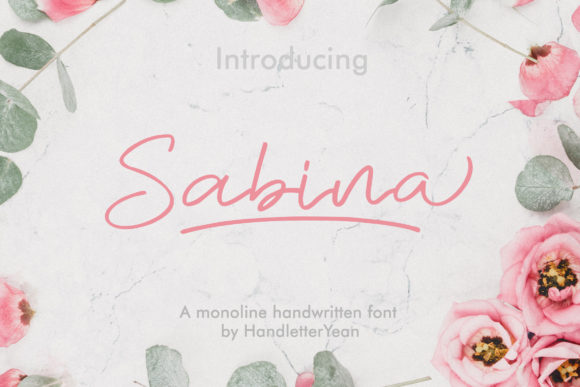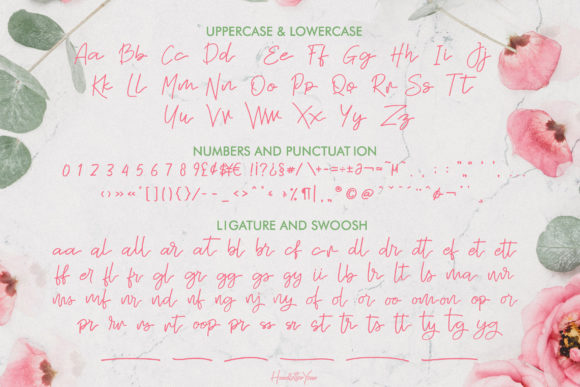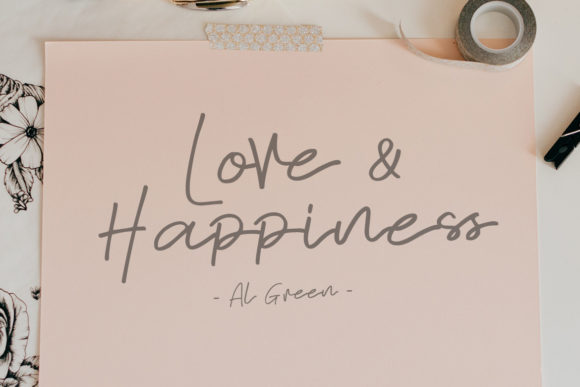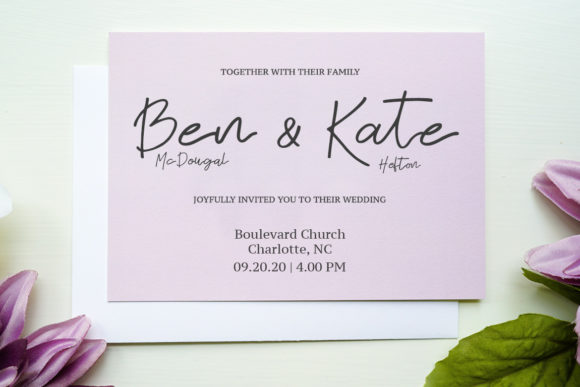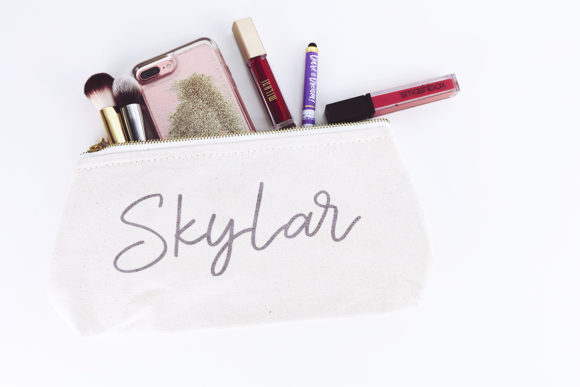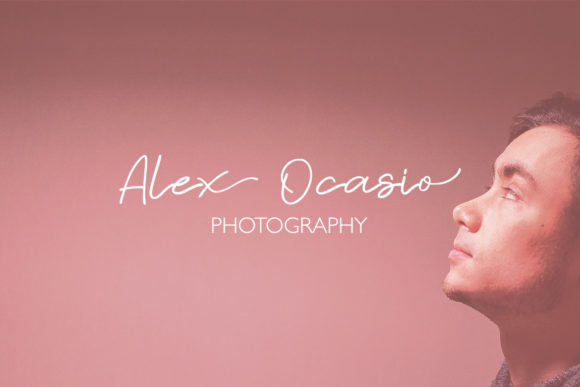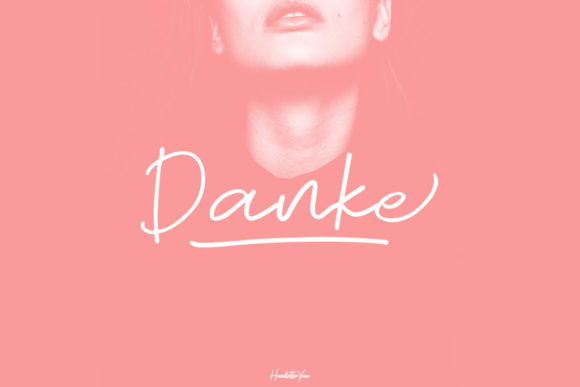
Sabina Font
About Sabina Font
Sabina is a handwritten monoline font, with an elegant and beautiful look. This font also comes with ligatures, alternates, swooshes, and underlines. It will make your design look stand out and unique.